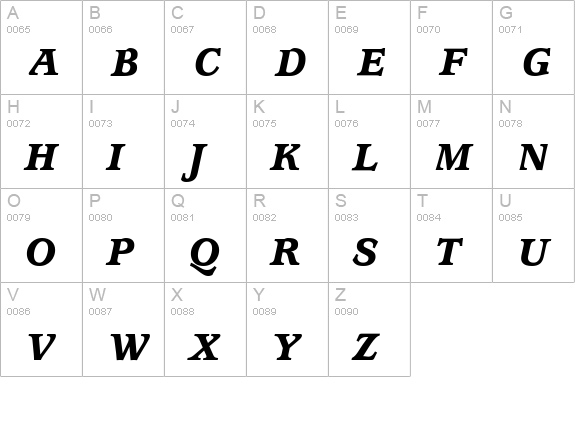
Exposition Black SSi Black Italic is a maximum-weight, dramatic, italic variant in the Exposition typeface family \xE2\x80\x94 well suited to maximum-impact headlines, posters, and packaging.
Exposition Black SSi Black Italic font exudes a sense of bold elegance with its sleek and refined design. The striking black color adds a touch of sophistication to any project, making it perfect for headlines, logos, and other design elements that demand attention. The italicized version of this font adds a dynamic flair, making it a versatile choice for both modern and classic designs. Best of all, Exposition Black SSi Black Italic font is free to download at FontsMarket.com, allowing you to easily access this stylish typeface for your creative projects. Whether you're designing a website, creating promotional materials, or crafting a unique branding identity, this font is sure to make a lasting impression. Elevate your designs with the timeless and impactful Exposition Black SSi Black Italic font today!